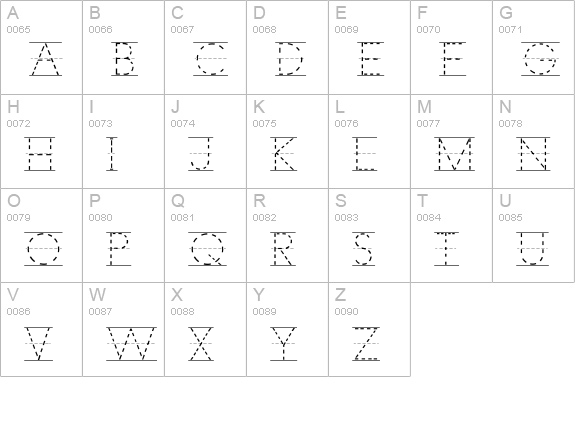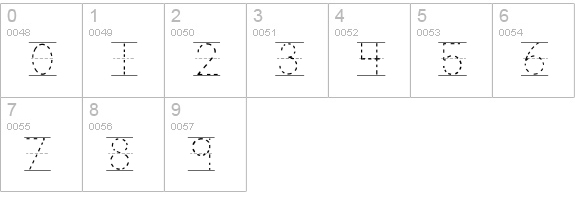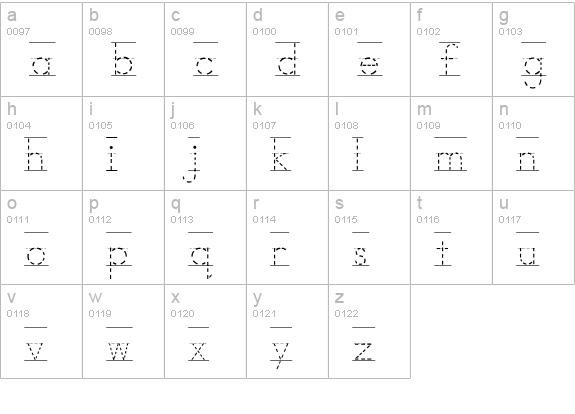
AbcPrintDottedLined Font Details
AbcPrintDottedLined font is a charming and unique typeface that combines playful dotted lines with classic letterforms. This delightful font is perfect for creating eye-catching designs that stand out. The dotted lines add a whimsical touch to any project, making it perfect for children's books, educational materials, and creative projects. Best of all, AbcPrintDottedLined font is available for free download at FontsMarket.com. Whether you're a designer looking for a fun and versatile font or a teacher seeking a creative way to engage your students, this font is sure to inspire your next project. Don't miss out on the opportunity to add this delightful font to your collection - download AbcPrintDottedLined font today and let your creativity shine!